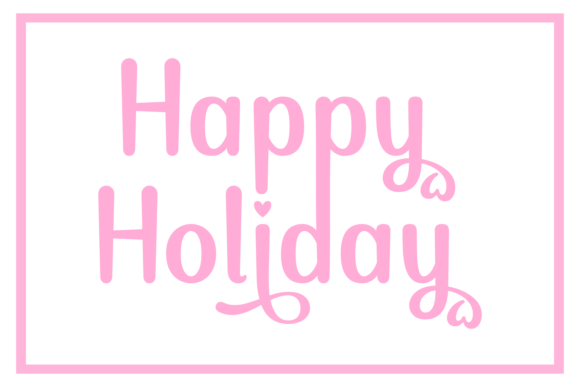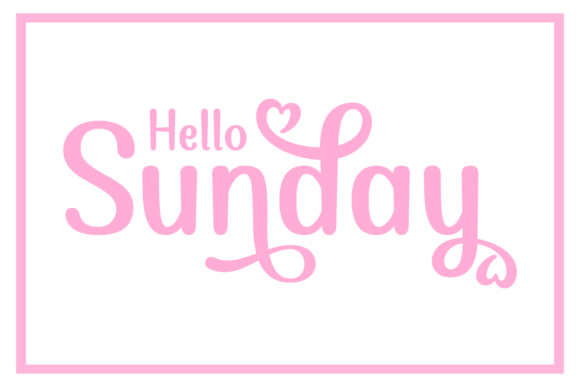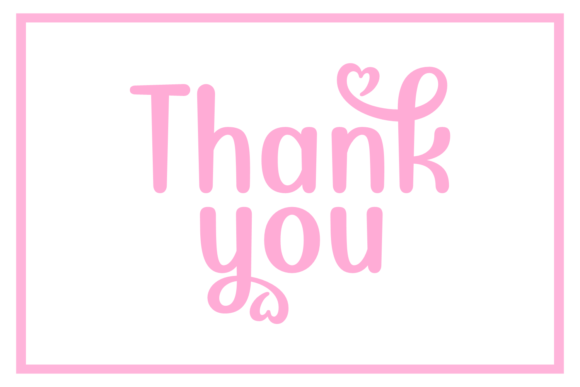
The Perfect Font for Love and Affection: Climby Font
As a designer, there’s nothing quite like the rush of inspiration that comes from finding the perfect font for a project. For me, it’s often the small moments that spark creativity – like strolling through a quaint bookstore and stumbling upon a beautifully crafted font that speaks directly to the heart. This time, it was the Climby Font that stole my heart, with its delicate strokes and charming heart-shaped embellishments that seemed to whisper sweet nothings of love and affection.
The Climby Font is a stunning handwritten typeface that’s perfect for conveying sentiments of love, joy, and affection in various design projects. With its elegant yet playful aesthetic, it’s no wonder why designers are flocking to this beautiful font for their romantic designs. Whether you’re creating wedding invitations, greeting cards, or simply want to add a touch of whimsy to your designs, the Climby Font is a valuable addition to any designer’s toolkit.
Climby Font Key Features
- Font Family: Climby Font offers a unique and playful font family with multiple weights, from Light to Bold.
- Font Size: The font is designed to be highly legible at various sizes, with optimal readability at 12-24 points.
- Resolution: Supports high-resolution displays, including Retina and 4K screens, with clear and crisp typography at 300 DPI.
- Unique Characteristics: Climby Font features a distinctive, hand-drawn style with intricate details and subtle texture, adding a touch of personality to any design.
- Character Set: Includes a comprehensive character set, covering Latin, Greek, and Cyrillic alphabets, as well as a range of punctuation and special characters.
Climby Font Review
Overall, I think the Climby Font is a decent addition to any designer’s toolkit. It’s a fun, adventurous font that’s perfect for outdoor or action-themed projects. Here are some things that work well:
- ✨ Unique letterforms that evoke a sense of movement and energy
- ✨ Great for headlines and titles, as it grabs attention without being too overbearing
- ✨ Versatile, with a wide range of weights and styles to choose from
- ⚠️ Limited legibility in small text sizes, which can make it difficult to read
- ⚠️ Not ideal for body text or long blocks of text, as it can be fatiguing to read
- ⚠️ Some characters, like the ‘i’ and ‘l’, can be confusingly similar, which can lead to errors
Overall, I think the Climby Font is a great choice for designers who want to add a bit of flair to their projects. Just be sure to use it judiciously, and pair it with a clear, readable font for body text. With a little creative restraint, the Climby Font can be a real showstopper.
Tips for Getting the Most Out of Climby Font
To get the most out of Climby Font, use it for designs that require a playful and adventurous feel, such as:
- Outdoor and adventure-themed designs.
- Children’s book illustrations.
- Travel and tourism designs.
Experiment with different font sizes, colors, and combinations to create unique and eye-catching designs.
Alternatives to “Climby Font” for Designers
Pacifico is a beautiful, elegant font ideal for creating a sense of sophistication and refinement. It’s perfect for use in high-end branding, luxury product packaging, and elegant website designs. Compared to Climby Font, Pacifico is more polished and less playful, making it suitable for more formal projects.
Great Vibes is a modern, cursive font that adds a touch of whimsy and personality to designs. It’s great for use in creative, artistic projects, such as music albums, fashion brands, and children’s products. Compared to Climby Font, Great Vibes is more fluid and expressive, making it perfect for projects that require a playful, hand-written feel.